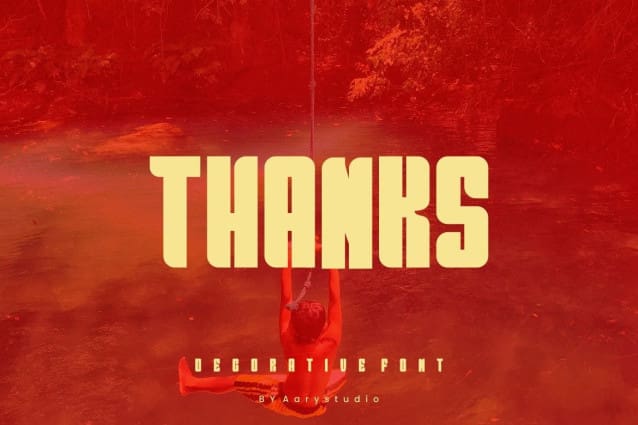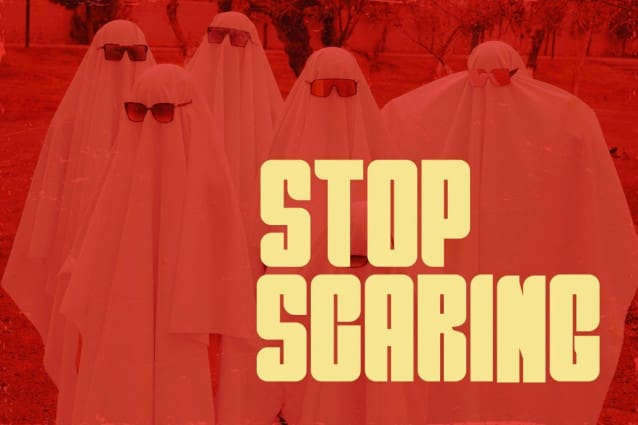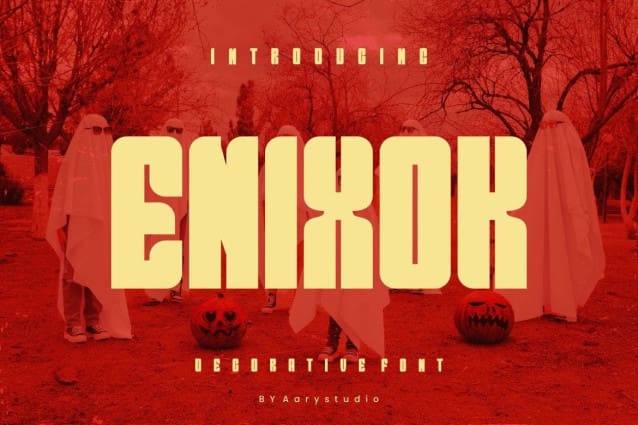
Enixok Font
Enixok Font, an elegant, simple and modern decorative font. The feeling is elegant and beautiful. This font brings you a beautiful and modern atmosphere. suitable for posters, book covers, cards, merchandise, etc.